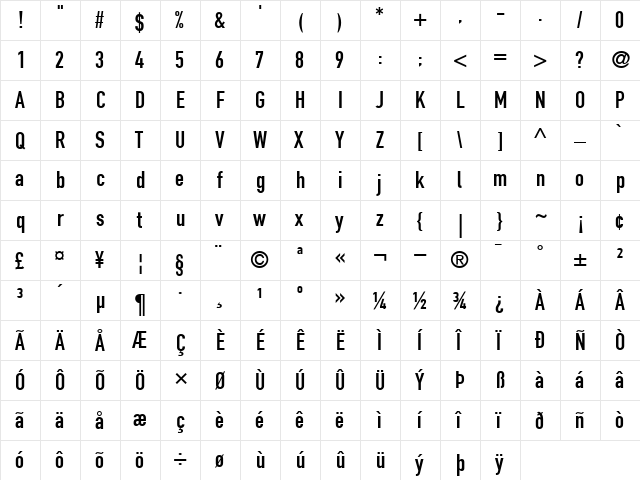
DIN1451Engschrift Roman Font Preview
DIN1451Engschrift Roman
DIN1451Engschrift Roman Font Details
Design Context for DIN1451Engschrift Typeface
DIN1451Engschrift takes a measured approach to typography — its balanced proportions and neutral character make it a reliable workhorse for both digital and print work.